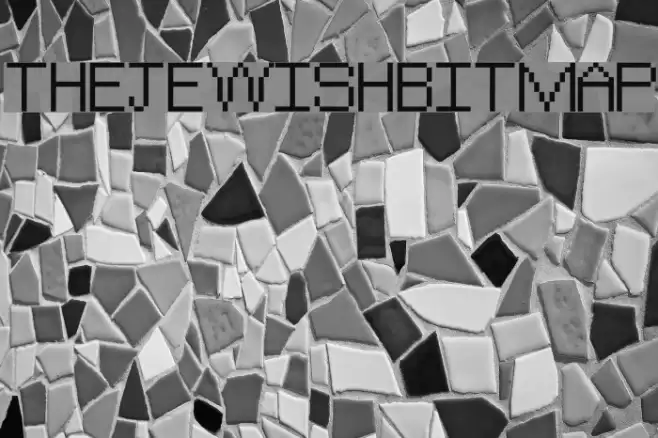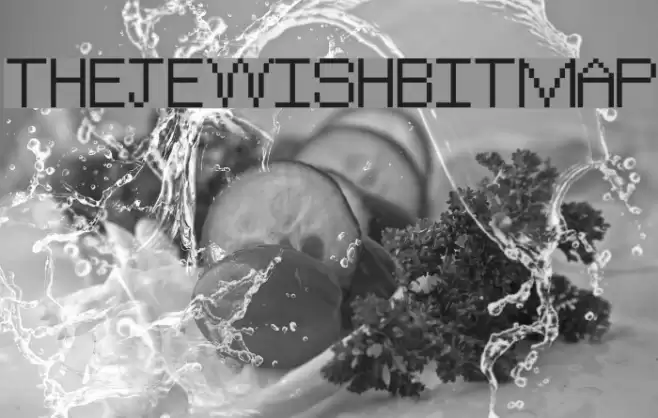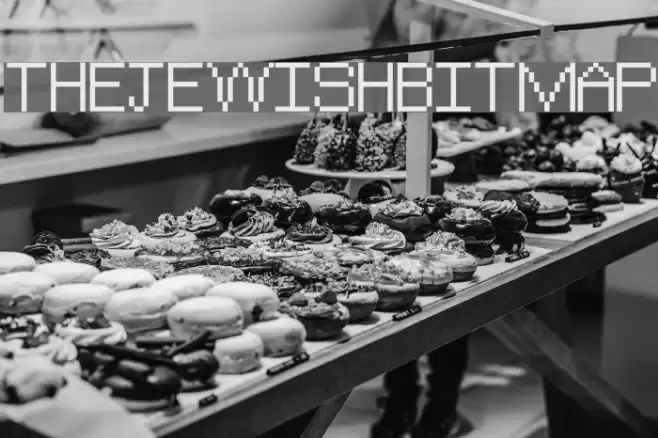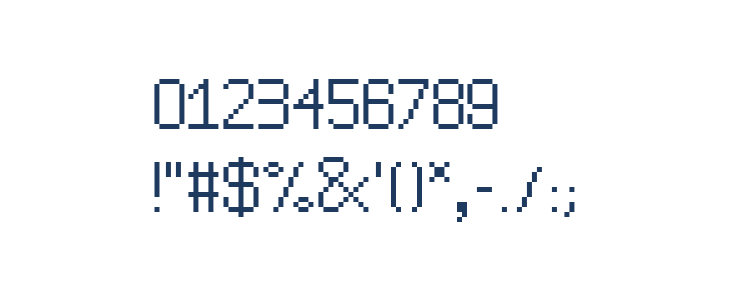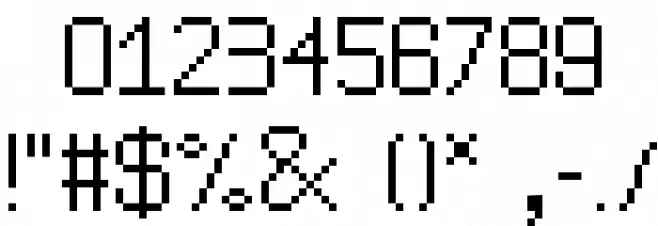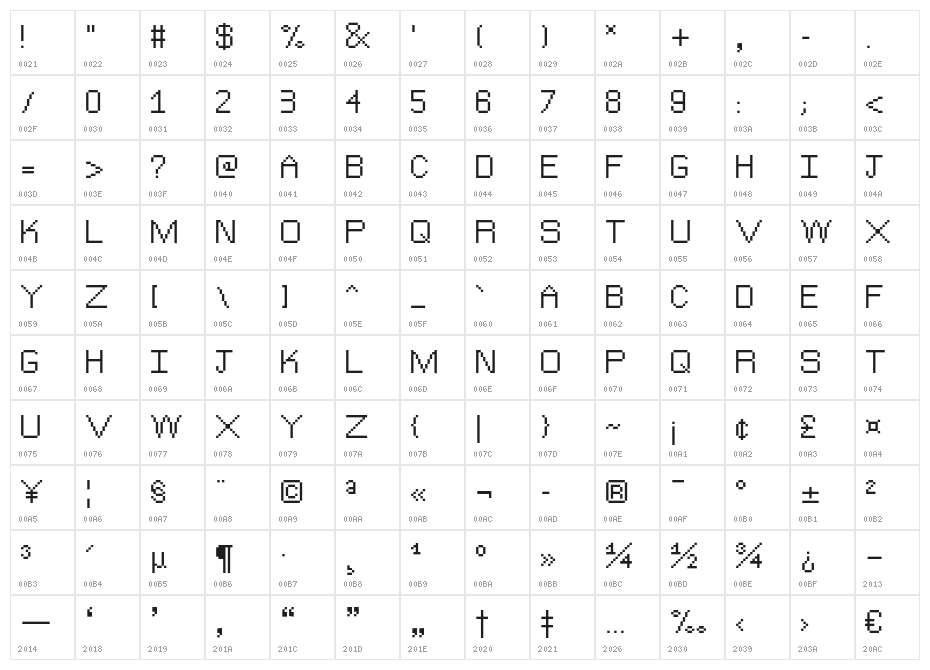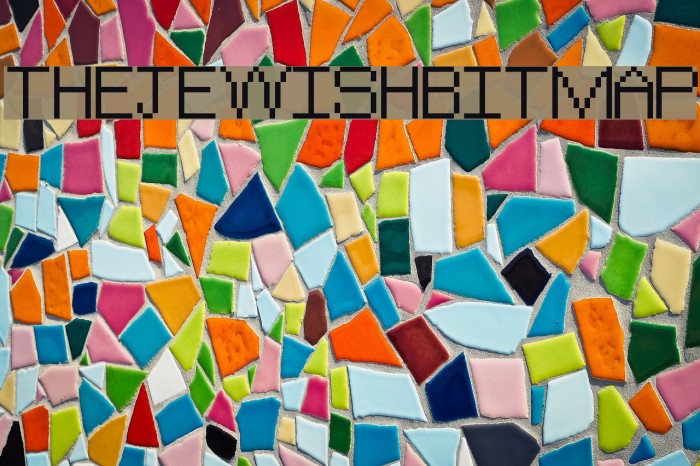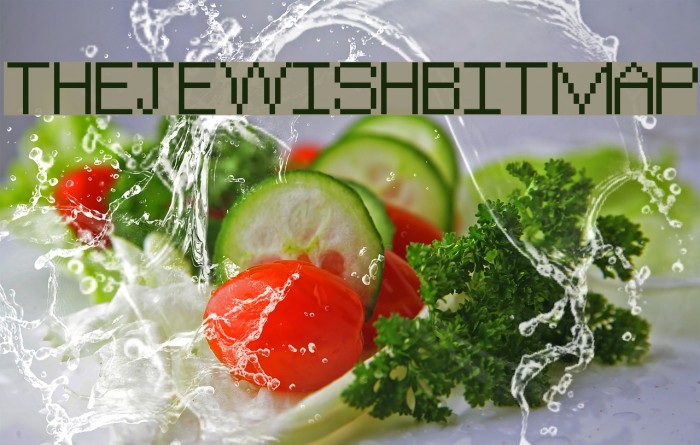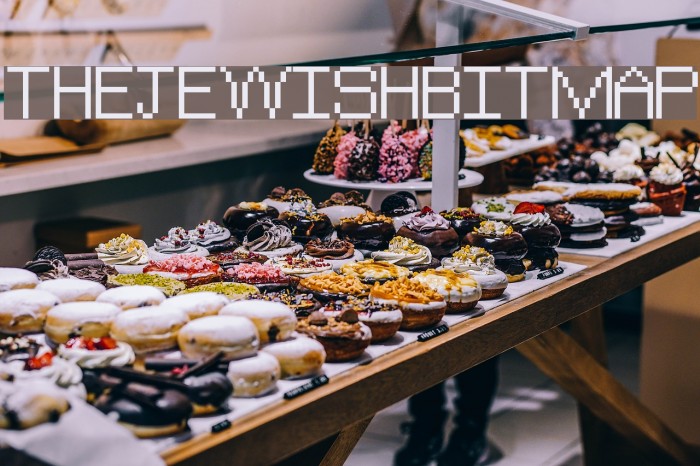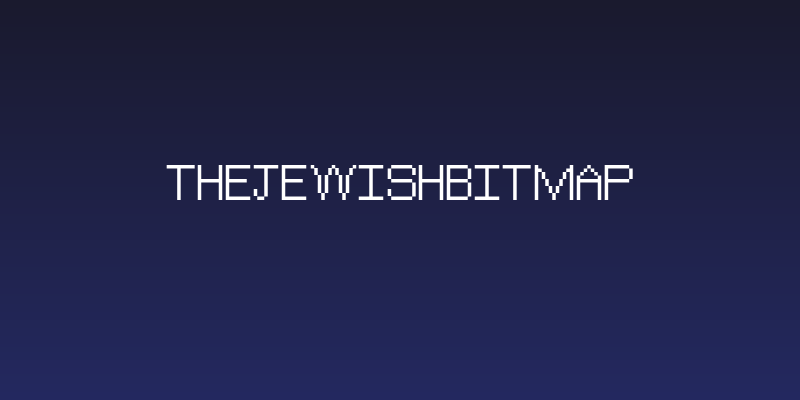
TheJewishBitmap Font
TheJewishBitmap Description
This font features a distinct pixelated style, reminiscent of early digital displays and classic video games. Each character is composed of uniform square blocks, creating a grid-like appearance that emphasizes its retro aesthetic. The uppercase and lowercase letters maintain a consistent height, contributing to a monospaced feel. Numbers and special characters follow the same design principles, ensuring a cohesive look across all glyphs. The font's simplicity and clarity make it highly legible, even at smaller sizes, while its nostalgic charm adds a playful touch to any design.
A pixelated, retro-style font with uniform square block characters from Uncategorized fonts.
- Proposed Projects: Ideal for retro-themed designs, video game graphics, digital art, and nostalgic branding projects.
- Overall Style: Vintage
- Use Case: Logos, Headlines, Digital displays